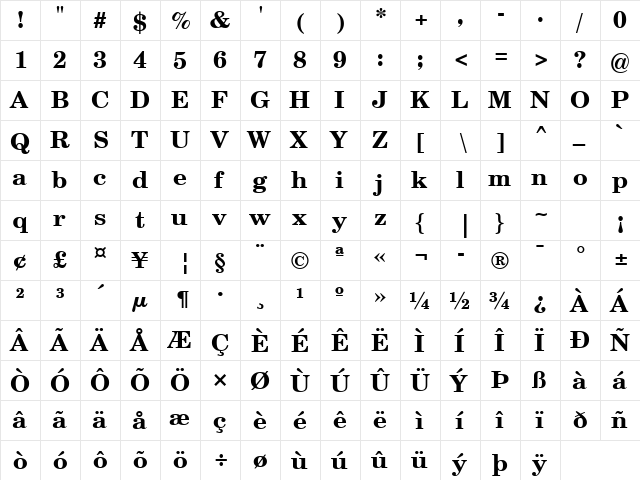
Century Schoolbook SWA Bold
Design Context for Century Schoolbook SWA Typeface
Century Schoolbook SWA offers clean, dependable letterforms without strong stylistic allegiance, making it a practical choice for designers who need flexibility. The heavy weight commands attention and anchors typographic hierarchies.